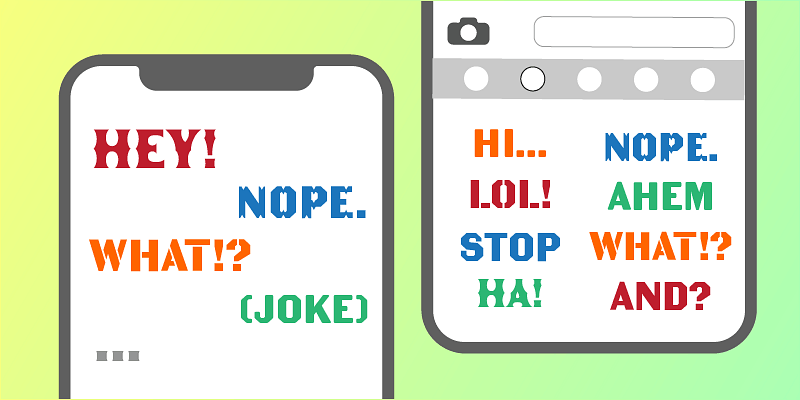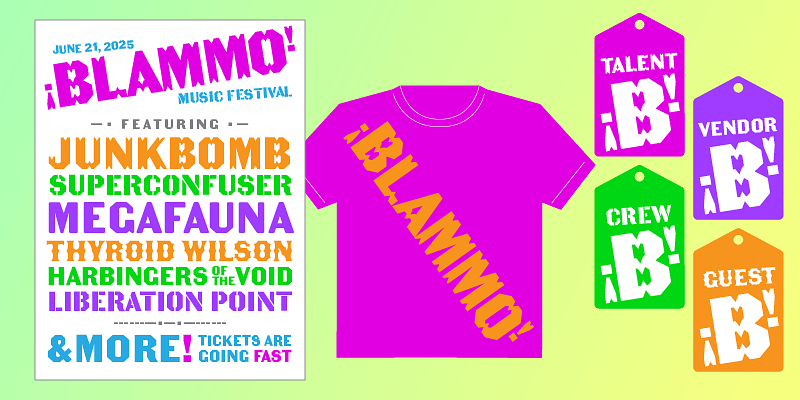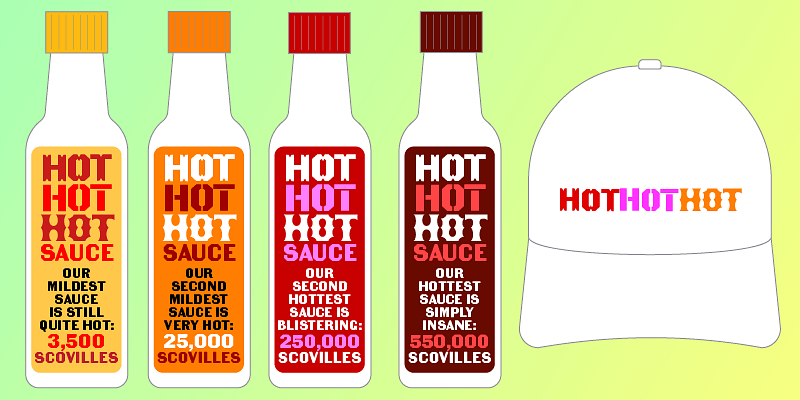
The Becker Gothics pay homage to the nineteenth century American lettering master George Becker. Designer James Puckett has given new life to the ingenious gothic alphabets found in Becker’s 1854 lettering manual Ornamental Penmanship. Use this quintet of typographic voices to evoke vintage engraving, lithography, signs, and wood type. Each font includes 23 ornaments, and the ornaments are PUA encoded.